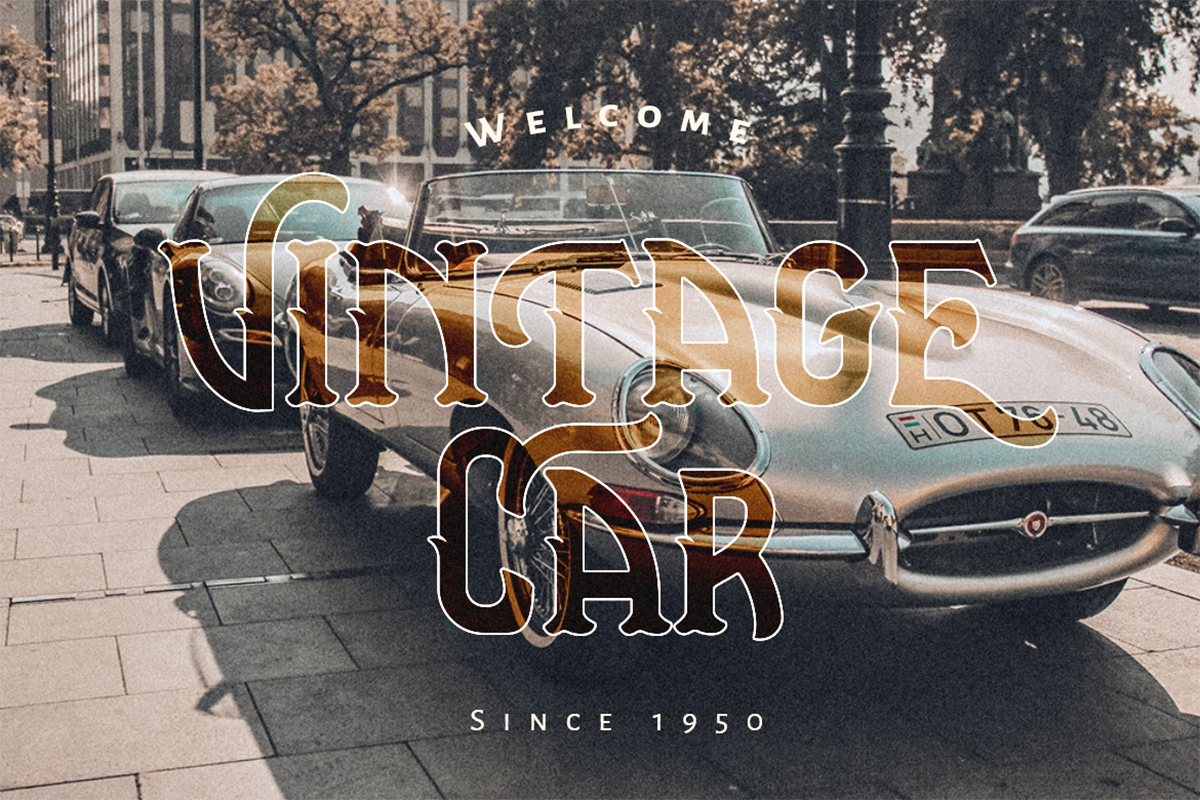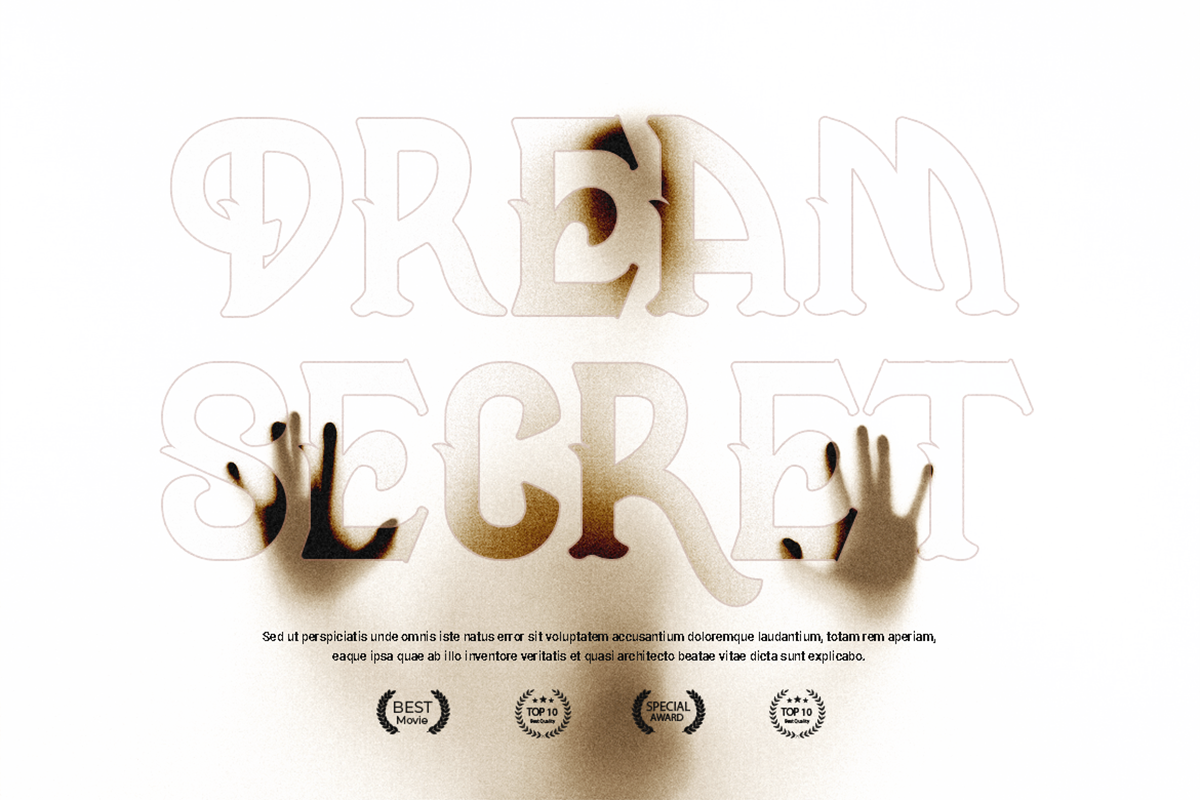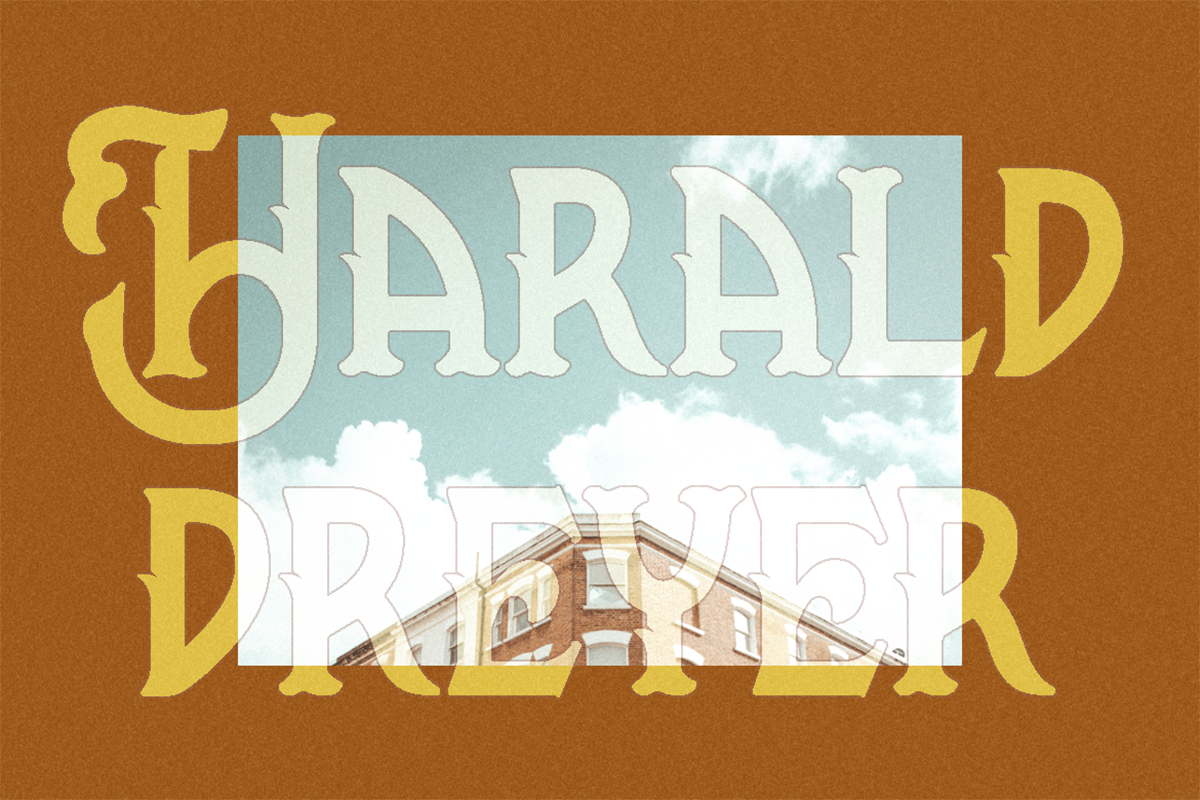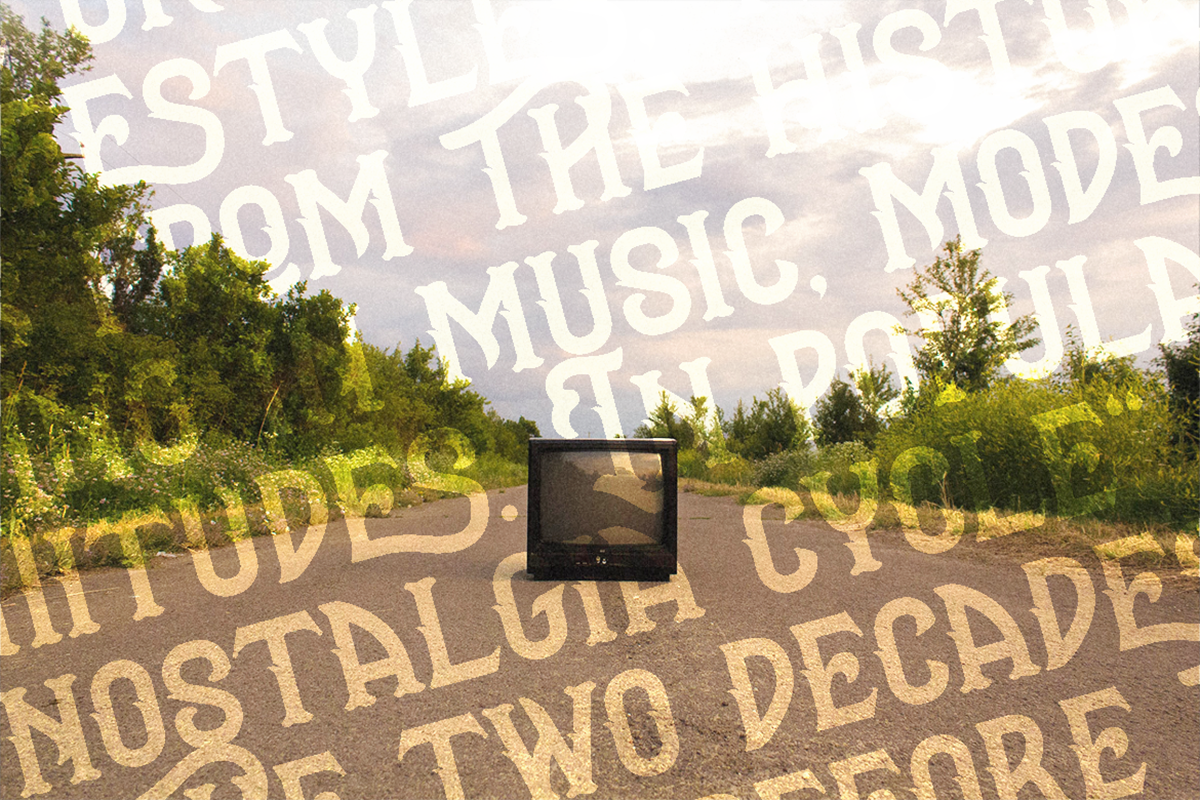
Mangrove Free Font
If you’re looking for a bold and daring font to add a touch of vintage masculinity to your designs, look no further than Mangrove Free Font! This mysterious typeface has a unique and eye-catching style that’s perfect for branding projects, logos, social media posts, and more. With its powerful accent and versatile design, Mangrove is the perfect choice for any project that requires a strong and memorable look. Whether you’re creating product packaging, photography, invitations, or stationery, Mangrove is sure to make your designs stand out from the crowd. So why wait? Download Mangrove today and add a touch of vintage masculinity to your next design project!